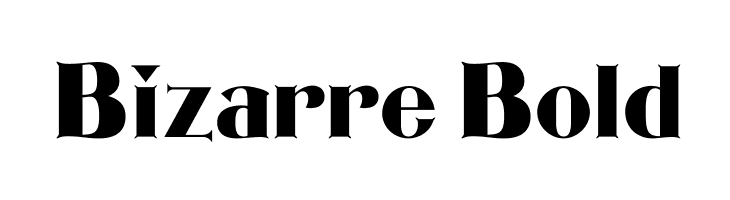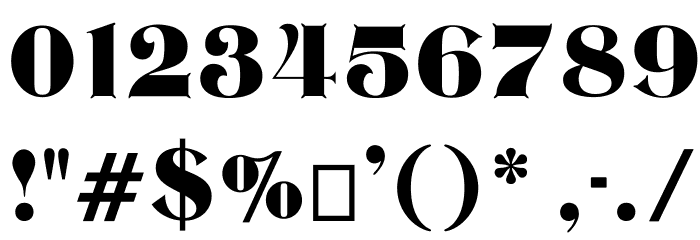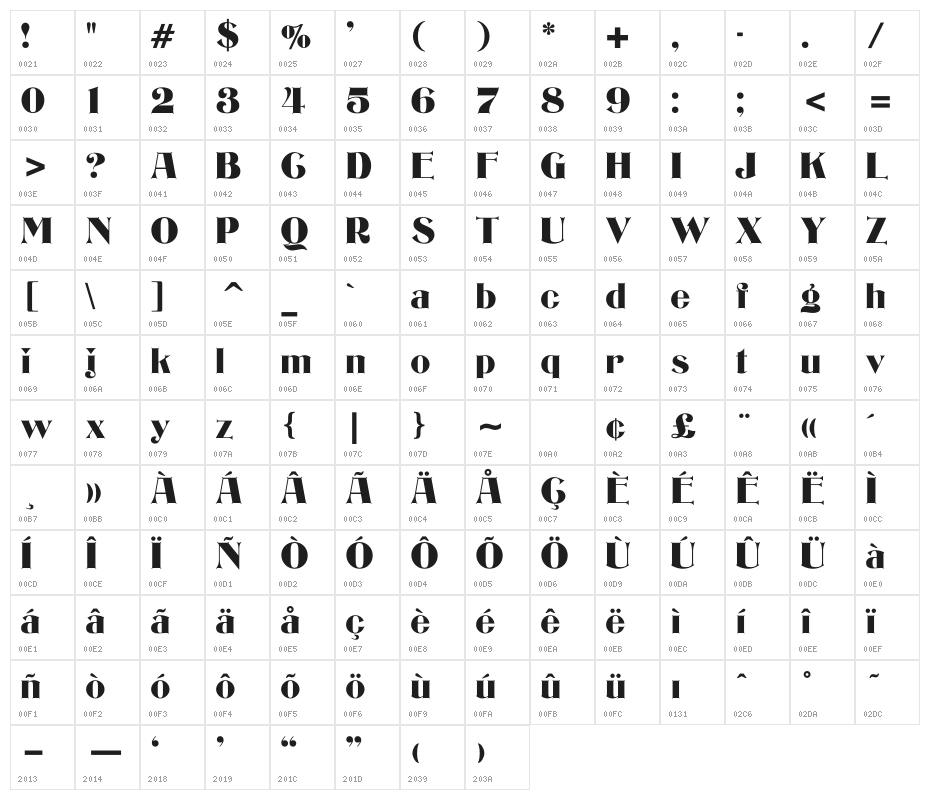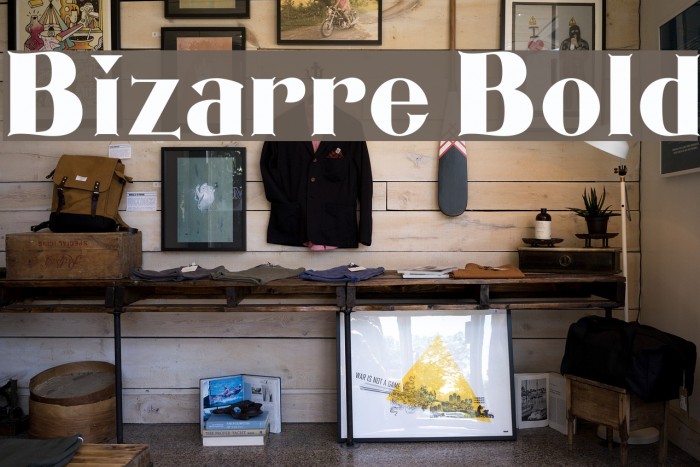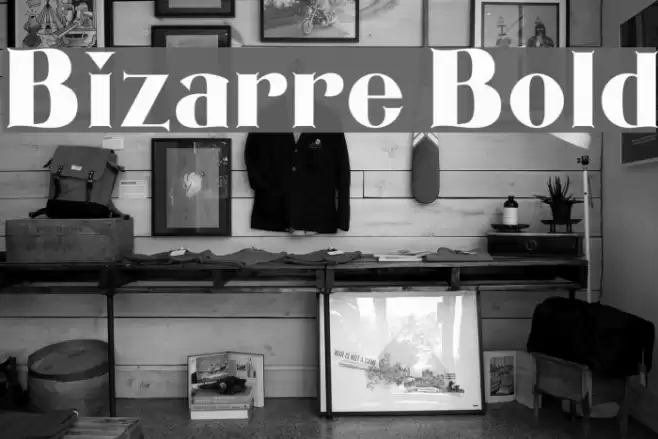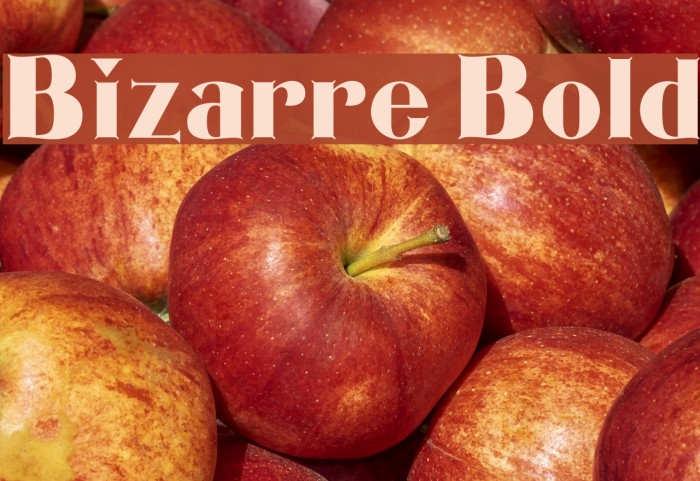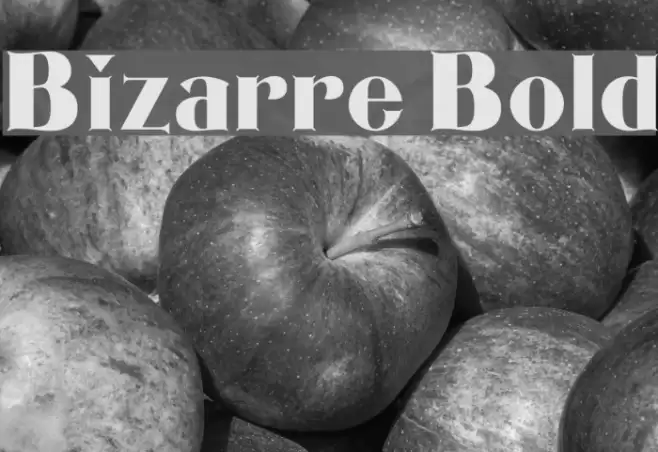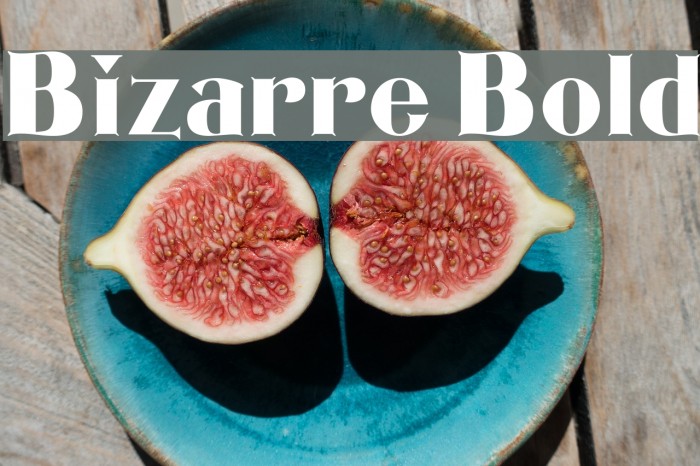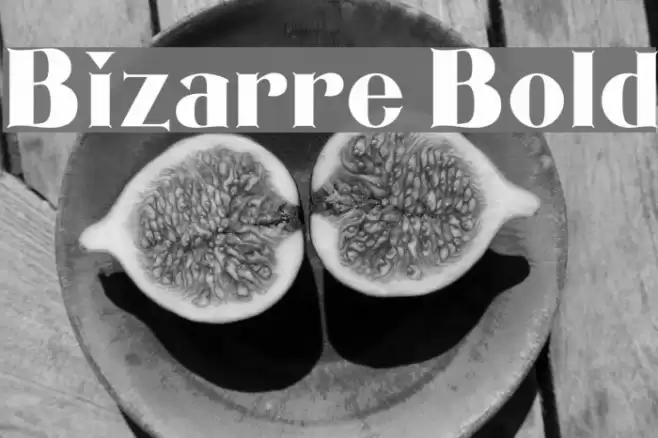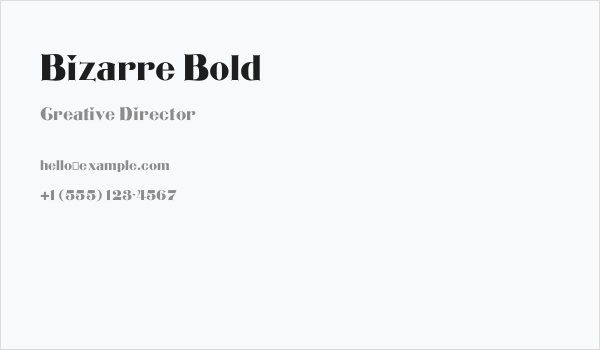
Bizarre Bold Font
Bizarre Bold Description
This font features a bold and striking design with high contrast between thick and thin strokes, giving it a dramatic and eye-catching appearance. The characters have a unique, almost theatrical flair, with sharp serifs and distinctive curves that add to its decorative style. The uppercase letters are particularly prominent, with a strong presence that commands attention. The lowercase letters maintain the boldness while offering a slightly more subdued look. Numbers and special characters are equally bold, ensuring consistency throughout the typeface. This font is perfect for making a statement in any design project.
| Proposed Projects | Ideal for headlines, posters, branding, and any project requiring a bold statement. |